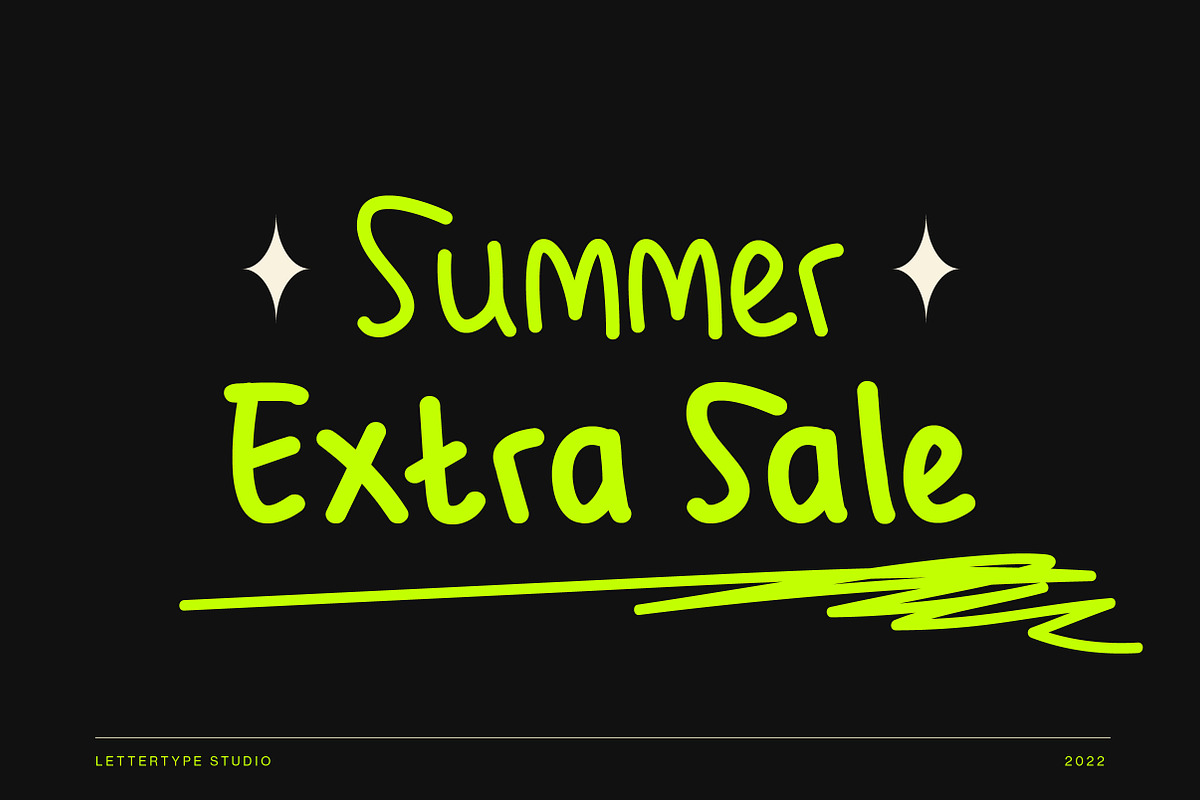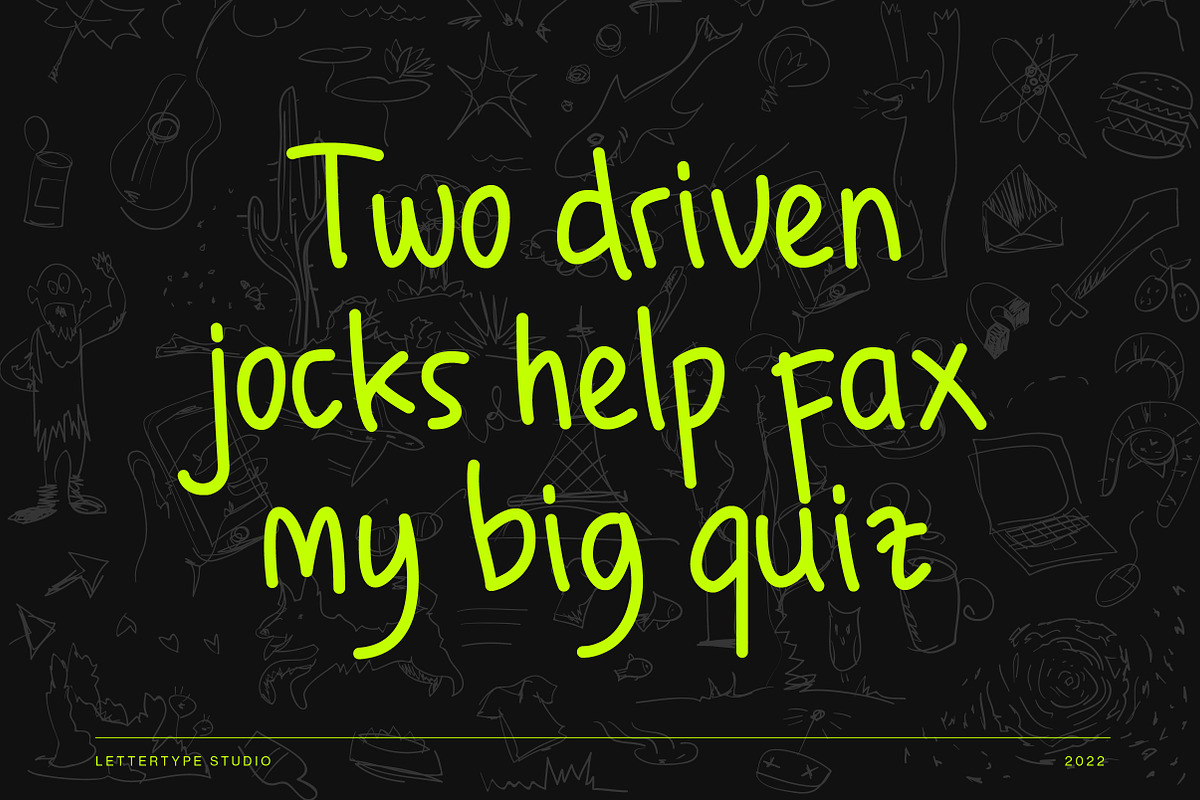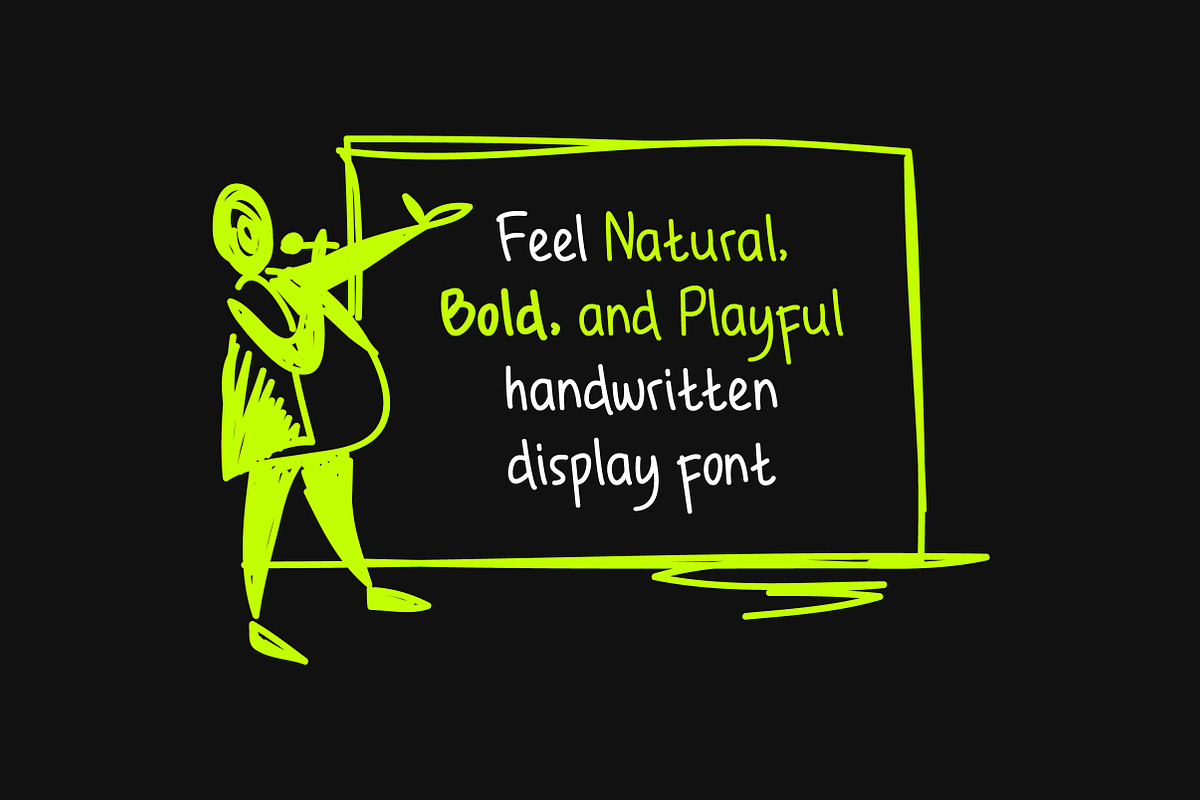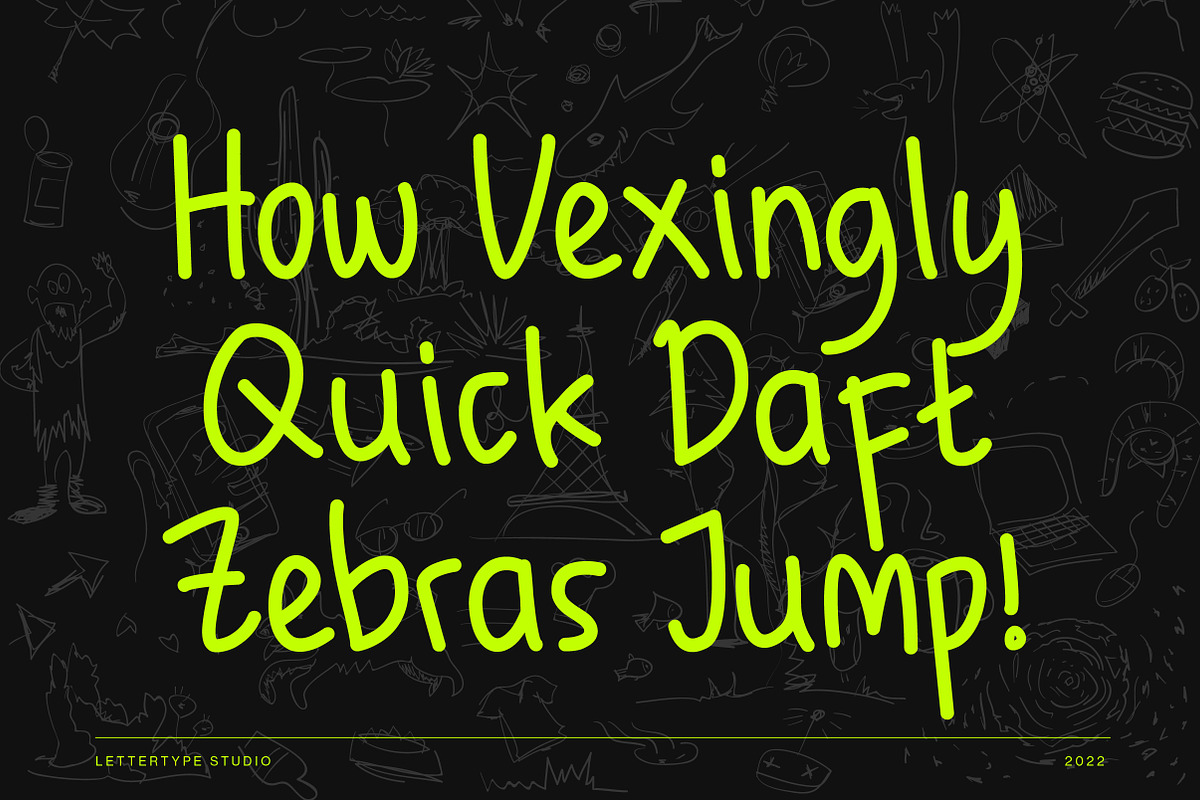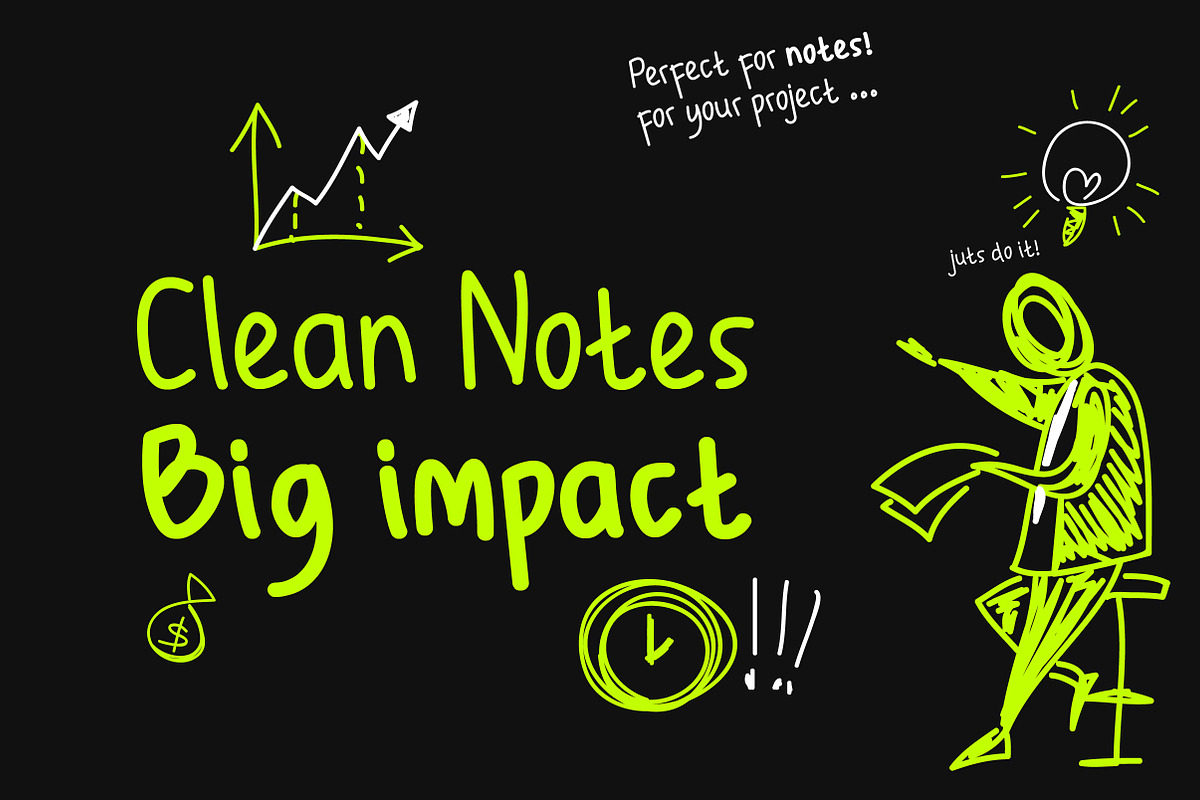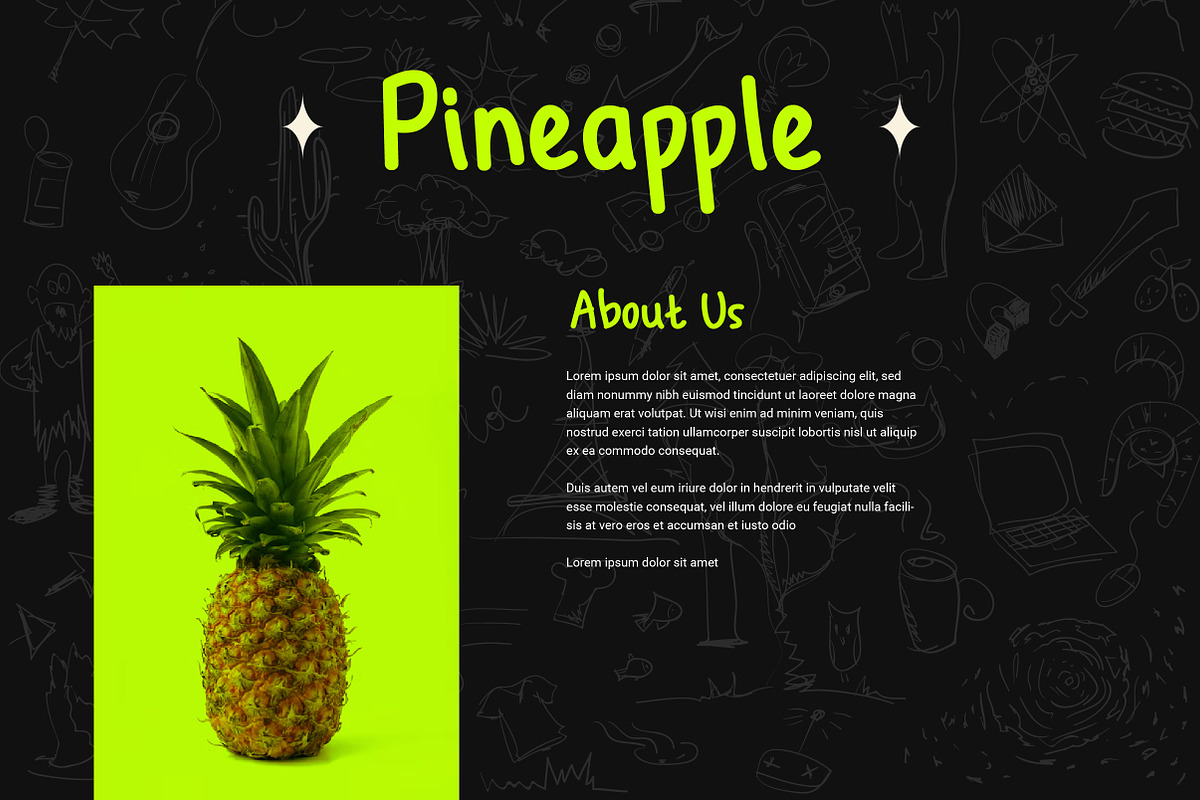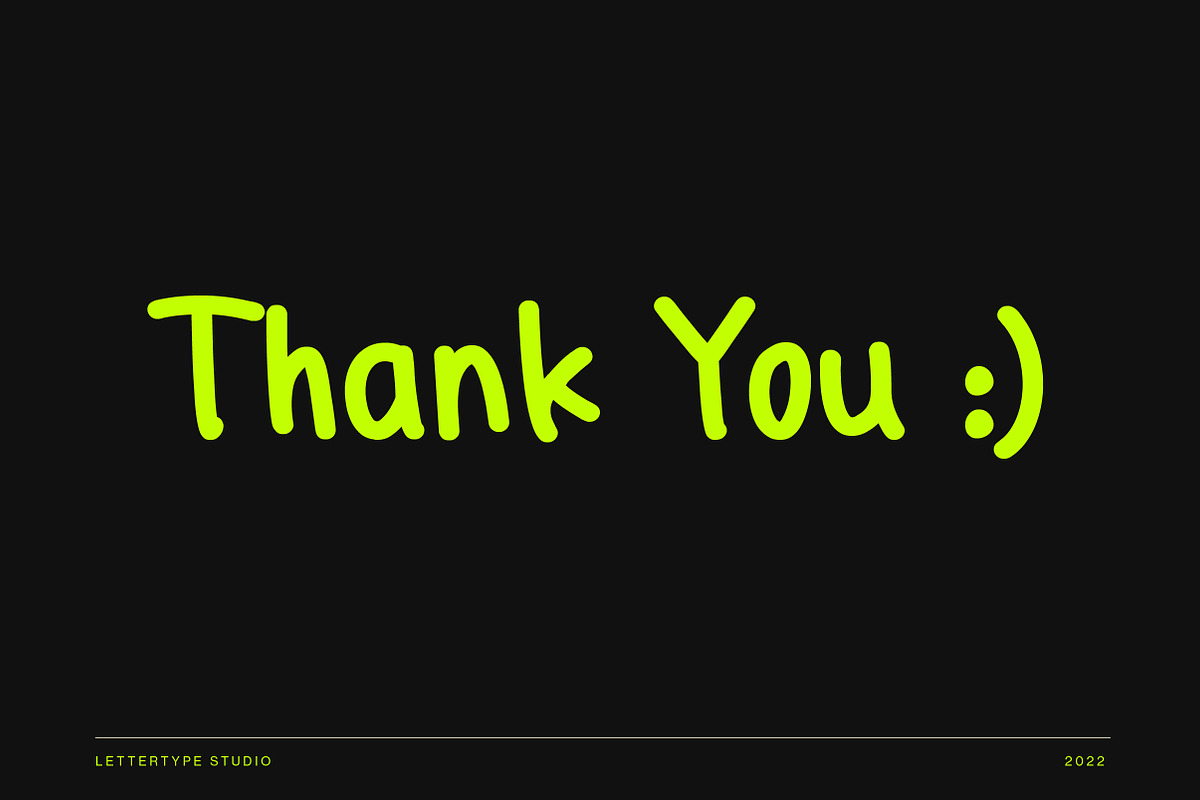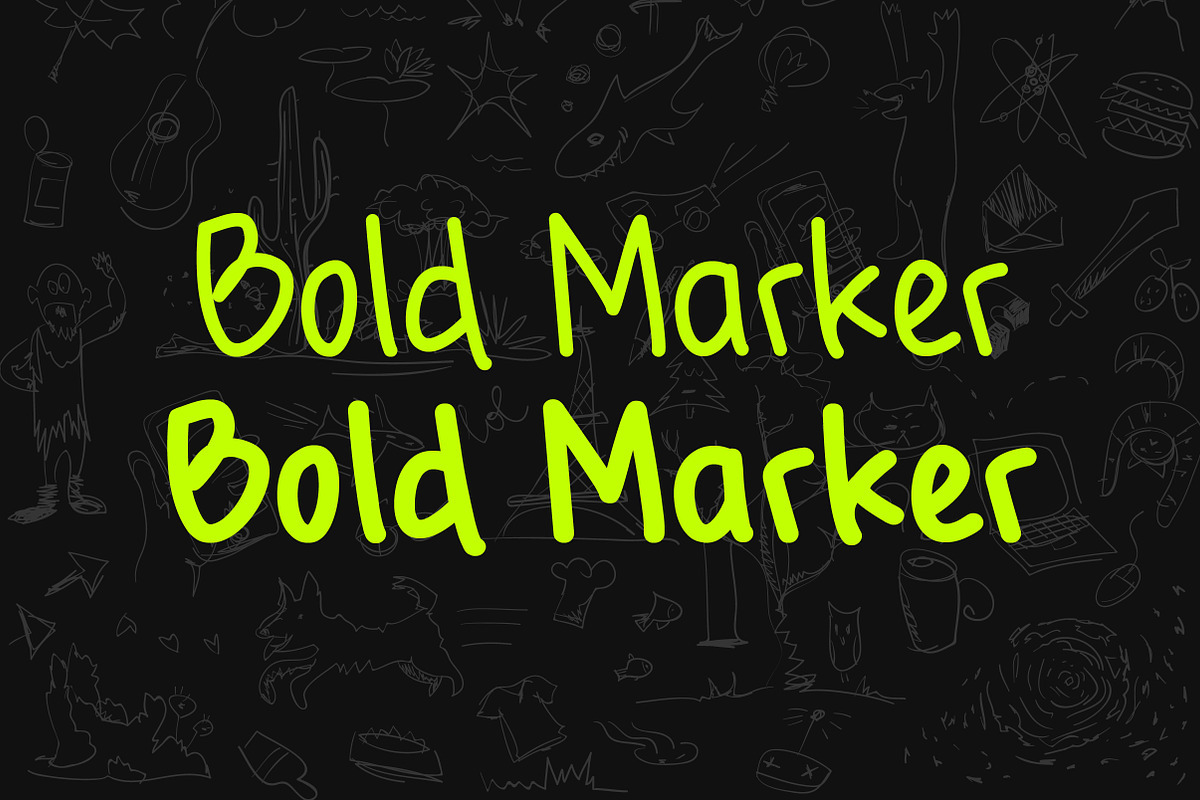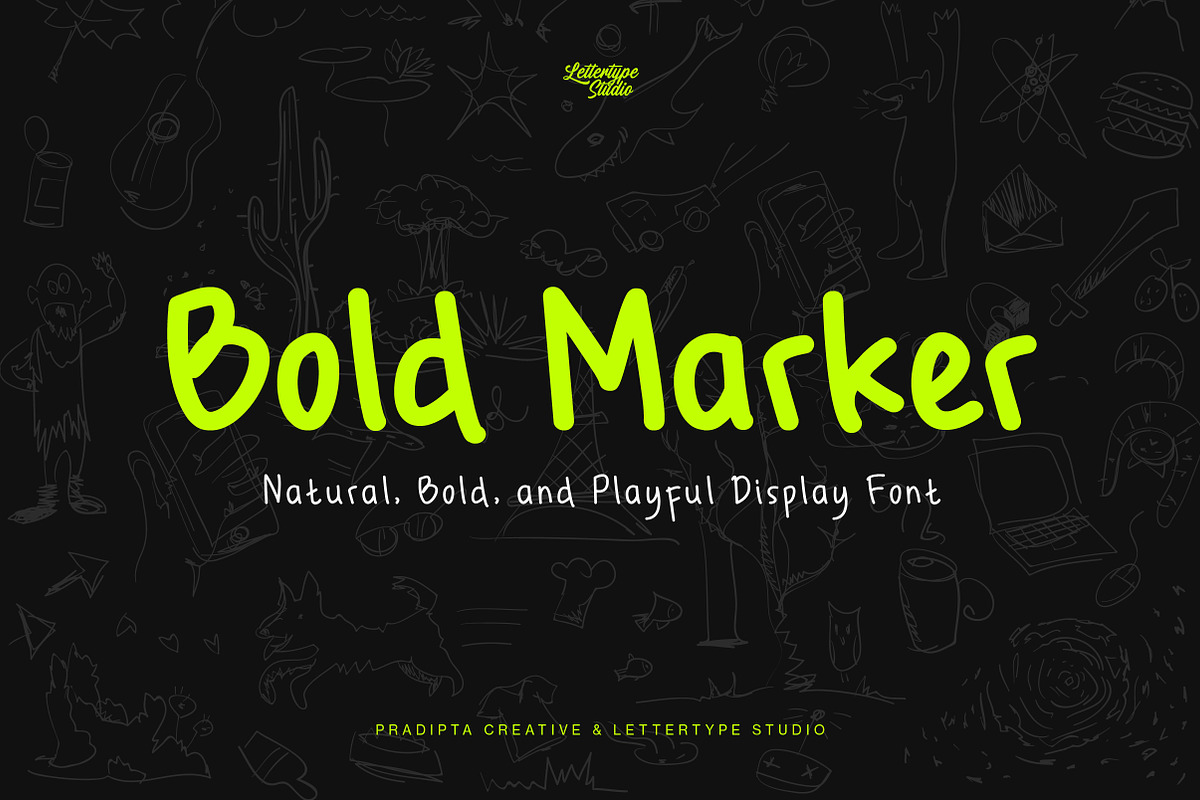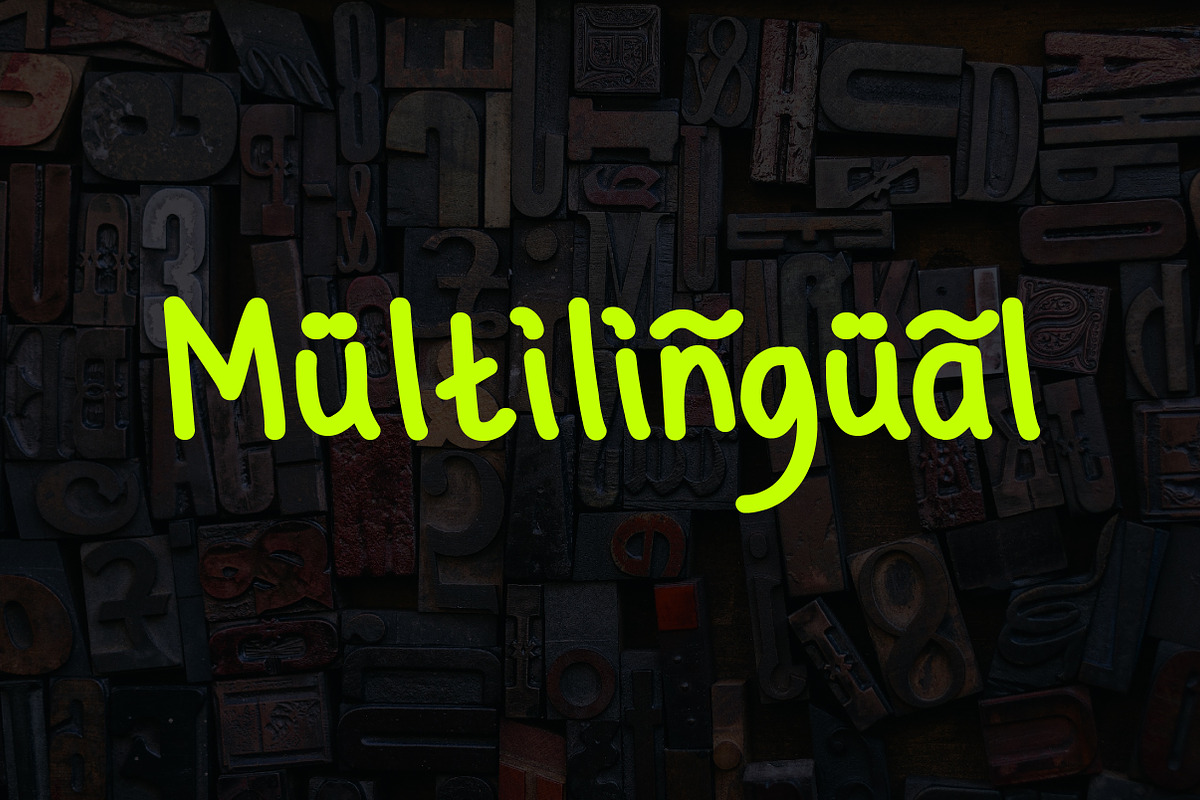
Bold Marker | Natural & Bold Display
Introducing Bold Marker, Natural, Bold, and Playful Display Font
is a casual, bold and playful font! This font works perfectly for anyone who needs a font for headlines, logotype, apparel, invitations, branding, packaging, advertising, and more. This typeface includes uppercase, lowercase, punctuation, symbols, and numerals.
Lowercase and Uppercase
Accented Characters
Bold Marker Font (Regular & Bold)
Multiple Languages Supported